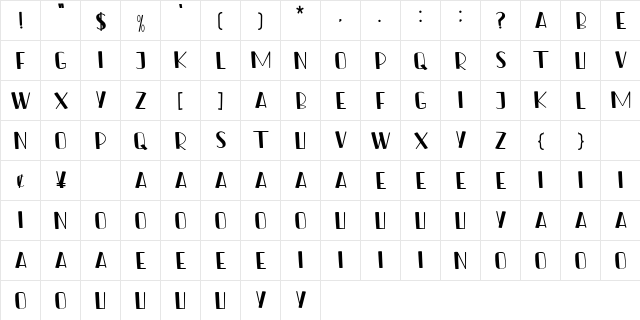
The Carstenz Regular
| Foundry | Alpha's Lettering |
| Designer | Muhammad SI |
Design Context for The Carstenz Typeface
The Carstenz takes a measured approach to typography — its balanced proportions and neutral character make it a reliable workhorse for both digital and print work.